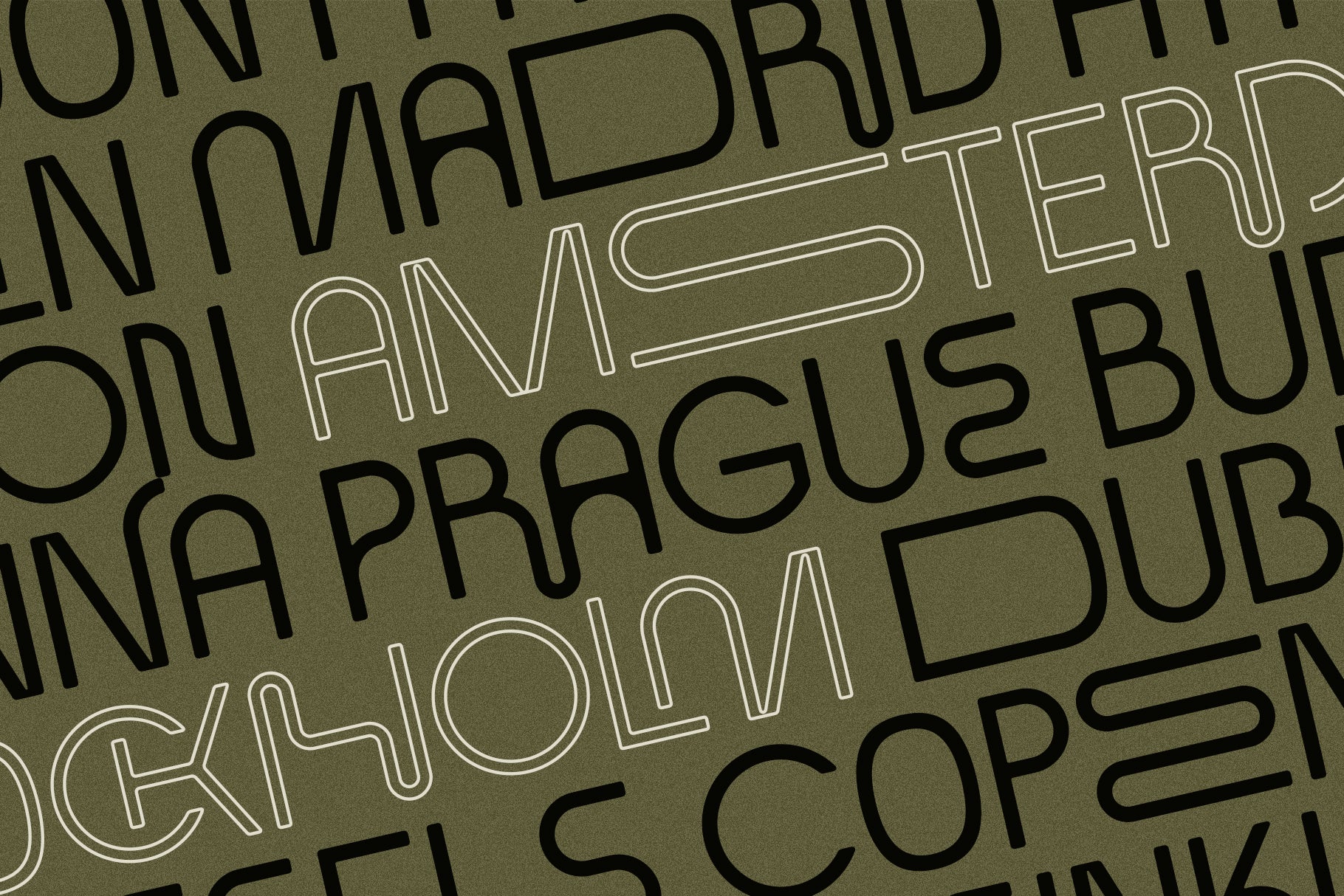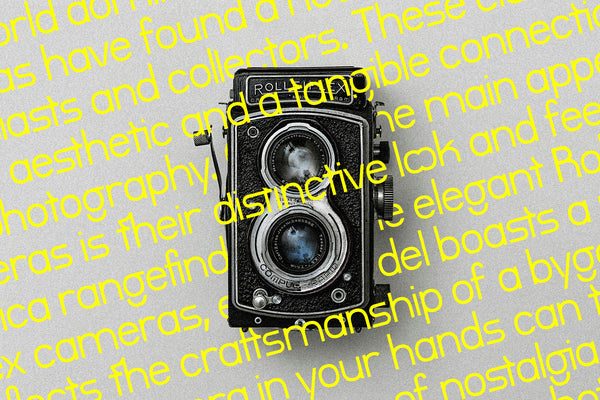
Kulture Grotesk is a modern sans serif typeface built for design versatility and creative freedom. With clean geometric lines, contemporary energy, and four unique styles—Regular, Round, Outline, and Round Outline—this font family adapts effortlessly to both polished and expressive design work.
Whether you’re crafting standout headlines, modern branding, or stylish web layouts, Kulture Grotesk delivers elegance and edge in equal measure. Its 350+ ligatures and alternates offer unique typographic variation for custom wordmarks, logos, and engaging display text.
Available Styles:
• Kulture Grotesk Regular – Clean, confident, and highly legible
• Kulture Grotesk Round – Soft, approachable, and modern
• Kulture Grotesk Outline – Bold and airy for maximum visual contrast
• Kulture Grotesk Round Outline – A hybrid style that’s both playful and precise
With full OpenType feature support, a refined character set, and 90+ languages covered, Kulture Grotesk is a global-ready typeface family built for designers who demand clarity, creativity, and flexibility.